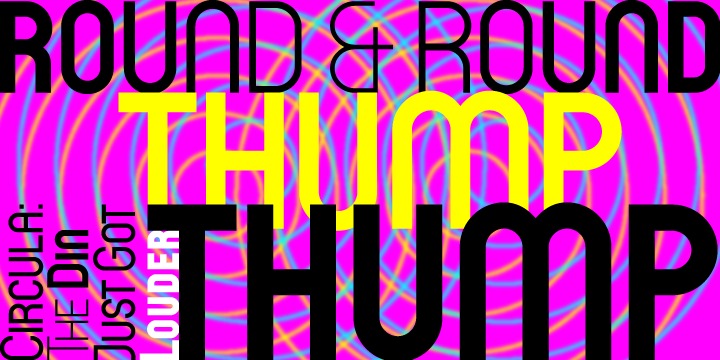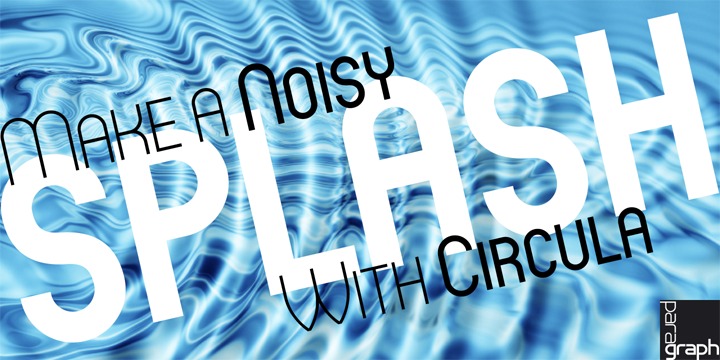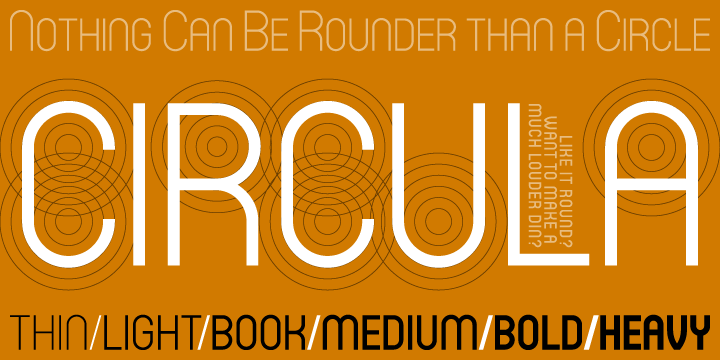
Circula font family
Circula is a simplified geometric display typeface based on circles. It contains capitals and small capitals only (no lower case), basic symbols, superior and inferior numbers and common fractions. It supports Eastern European, Baltic and Turkish character sets.
• Designers: Jan Schmoeger
Circula Thin
Circula Light
Circula Book
Circula Medium
Circula Bold
Circula Heavy